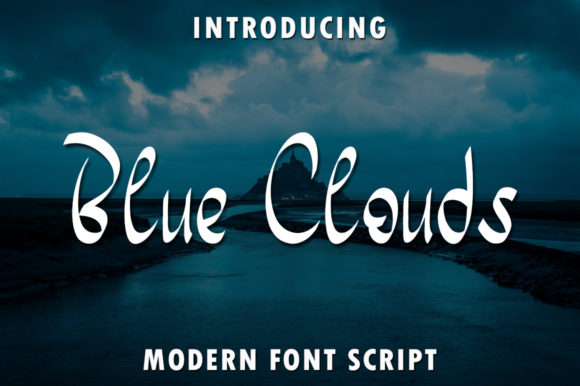
The Blue Clouds Font: A Delicate and Elegant Handwritten Masterpiece
I’ll never forget the moment I stumbled upon the Blue Clouds font. I was working on a project for a client who wanted a elegant and sophisticated look, but I was struggling to find the right font to convey that feeling. That’s when I discovered Blue Clouds, and it completely transformed my design. The delicate and rounded letters seemed to dance across the page, adding a touch of whimsy and charm to the entire project. In this article, I’ll share my love for the Blue Clouds font, its features, and how to use it to create spectacular designs.
An Honest Review of Blue Clouds Font
- 💫 Delicate and elegant handwritten style
- ✅ Well-rounded letters that are easy to read
- 🎨 Incredibly versatile and suitable for various design projects
- 💖 Unique and distinctive character that sets it apart from other fonts
- ⚠️ Limited availability of extended language support
- 🤔 Some users may find the font too delicate for certain design projects
The Designer Inspiration Behind Blue Clouds Font
The Blue Clouds font was designed with the intention of creating a delicate and elegant handwritten font that would evoke a sense of whimsy and charm. The designer wanted to create a font that would be versatile and suitable for various design projects, from wedding invitations to branding and packaging.
Q: What is the Blue Clouds font suitable for?
A: The Blue Clouds font is suitable for a wide range of design projects, including wedding invitations, branding, packaging, and more.
Q: Is the Blue Clouds font easy to read?
A: Yes, the Blue Clouds font is designed to be easy to read, with well-rounded letters and a clear, elegant style.